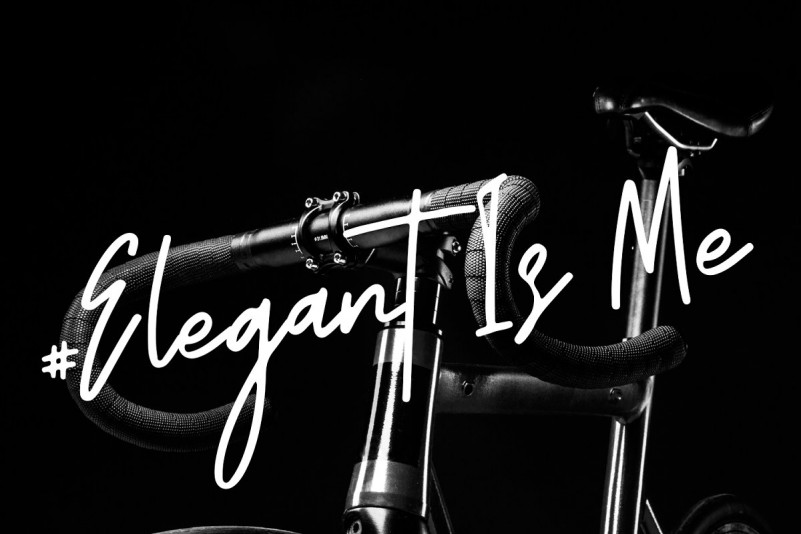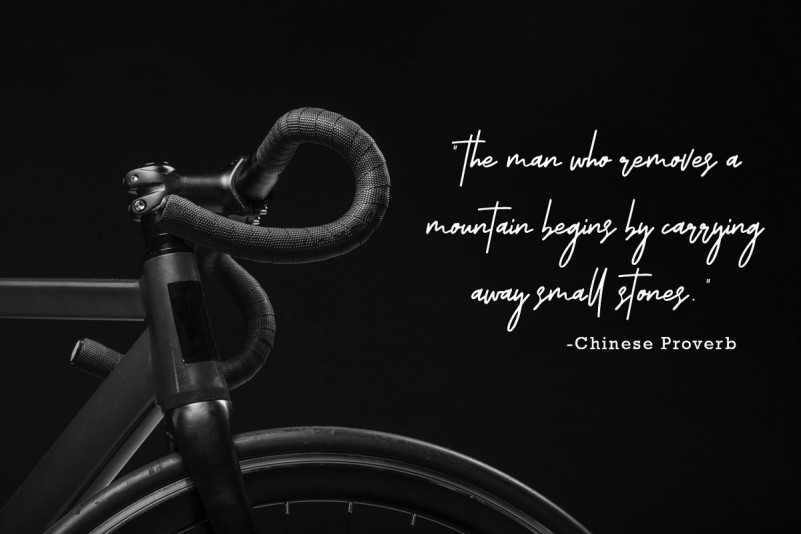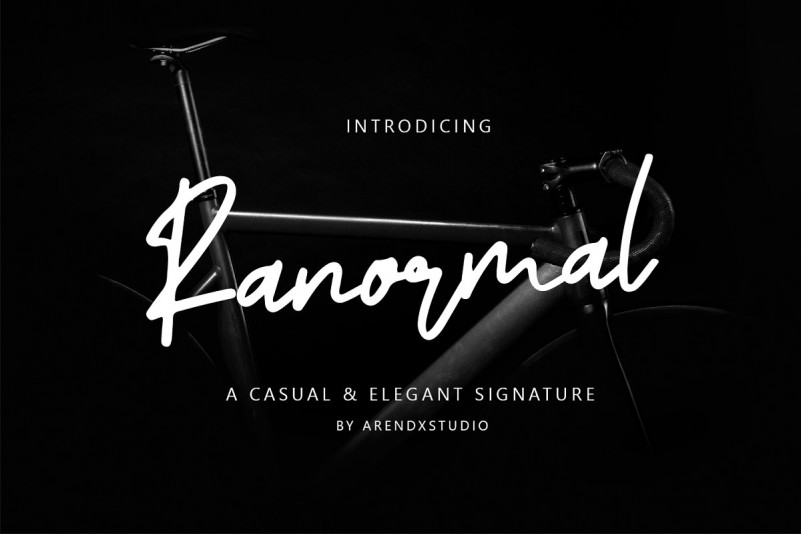
Ranormal Signature Font
This a casual and elegant signature font. A handwritten and script style makes elegant, natural, stylish and perfect for any projects that need natural taste. Introducing Ranormal Font. It is designed and shared by Arendxstudio. It’s made as elegant as possible for the use of your design project. It’s offers a variety of design projects, including logos & amps, branding, wedding designs, social media posts, advertisements, product designs, magazines and more.